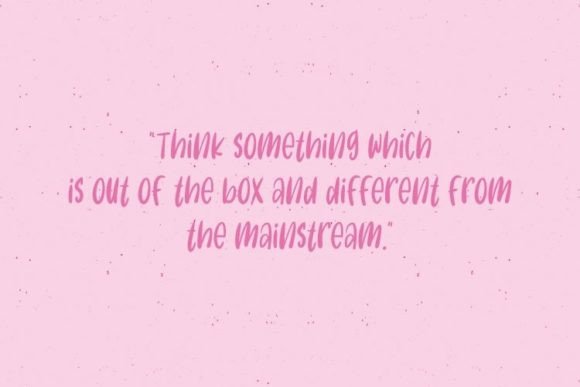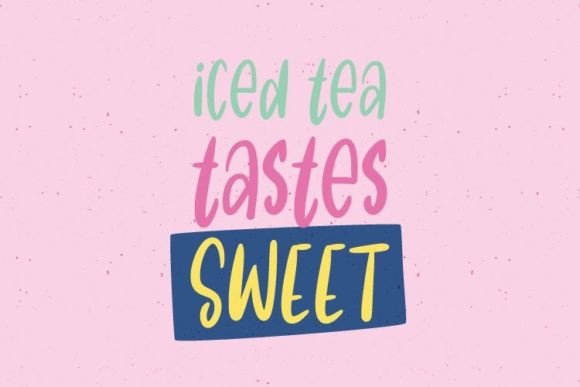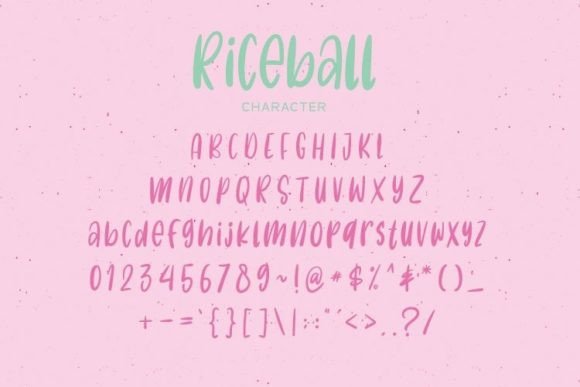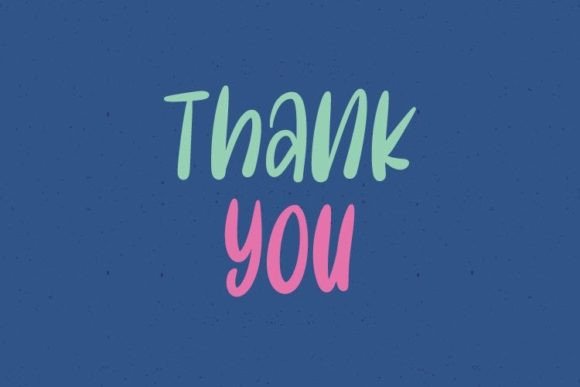
Introduction to Riceball Font
Riceball is a clean, cute, and adaptable handwritten font that can be used for various designs.
Its authentic vibe will add a personal and realistic feel to your designs .
Key Features of Riceball Font